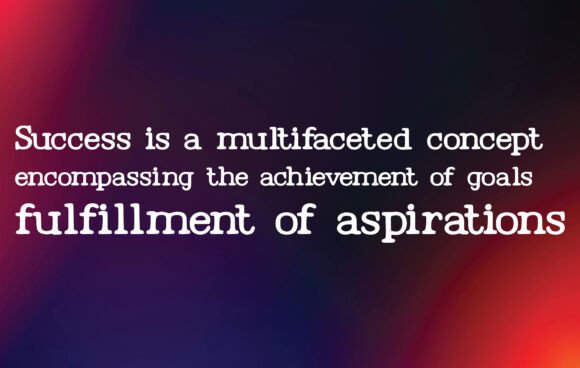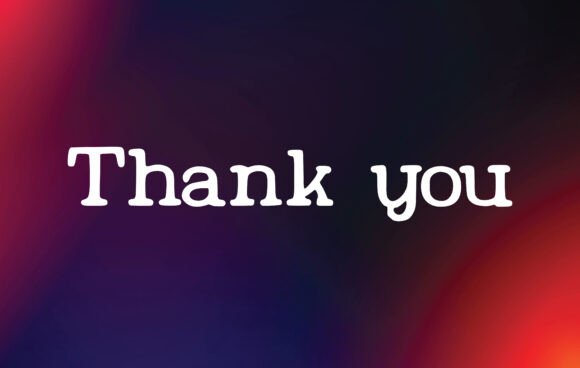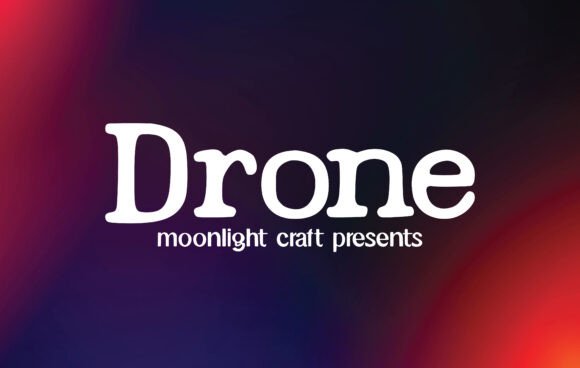
Introducing Drone Font: The Ultimate Creative Companion
Are you tired of using the same old fonts that seem to blend into the background? Look no further than Drone Font, the versatile and eye-catching typeface that’s about to become your go-to favorite. This font is designed to bring your creative ideas to life, making it perfect for a wide range of design projects.
What Makes Drone Font Stand Out?
Drone Font is crafted with clarity and readability in mind, making it an excellent choice for both titles and body text. Its clean lines and modern aesthetic ensure that your designs will look fresh and professional, whether you’re working on magazine covers, t-shirts, social media posts, branding, wedding invitations, or greeting cards.
One of the standout features of Drone Font is its incredible versatility. It’s a font that can adapt to any design style, from bold and edgy to elegant and sophisticated. Whether you’re creating a statement piece or a more subtle design, Drone Font fits right in with style and personality.
Drone Font is a dream come true for designers and crafters who want to add a personal touch to their work. With its wide range of applications, you can use it to:
• Create stunning magazine covers that grab attention
• Design eye-catching t-shirts that make a statement
• Elevate your social media posts with a professional look
• Develop a strong brand identity that sets you apart
• Craft beautiful wedding invitations and greeting cards that impress
Why Choose Drone Font?
So, what sets Drone Font apart from other fonts on the market? Here are just a few reasons why it’s an excellent choice for your design projects:
• Easy to read: Drone Font is designed to be clear and legible, making it perfect for body text and titles.
• Versatile: It can be used in a wide range of design projects, from bold and edgy to elegant and sophisticated.
• Eye-catching: Its modern aesthetic ensures that your designs will stand out from the crowd.
• Professional look: Drone Font is perfect for designers and crafters who want to add a professional touch to their work.
Tips for Using Drone Font
To get the most out of Drone Font, here are a few tips to keep in mind:
• Experiment with different sizes: Drone Font looks great in a variety of sizes, from large titles to smaller body text.
• Play with colors: Try pairing Drone Font with different colors to create a unique and eye-catching design.
• Mix and match: Don’t be afraid to combine Drone Font with other fonts to create a truly unique look.
Drone Font is a game-changer for designers and crafters who want to take their work to the next level. With its versatility, readability, and eye-catching aesthetic, it’s the perfect addition to any design project. Whether you’re working on a magazine cover, t-shirt, social media post, or wedding invitation, Drone Font is sure to bring your creative ideas to life.
Get Ready to Take Your Designs to New Heights